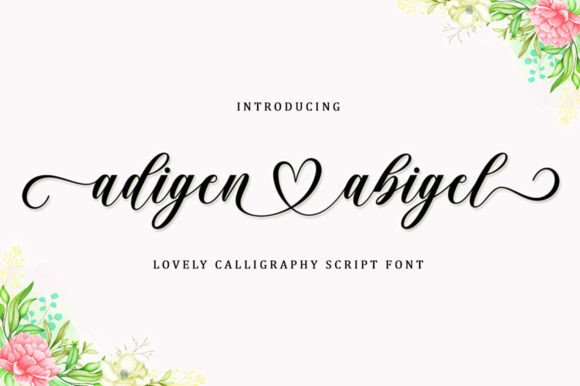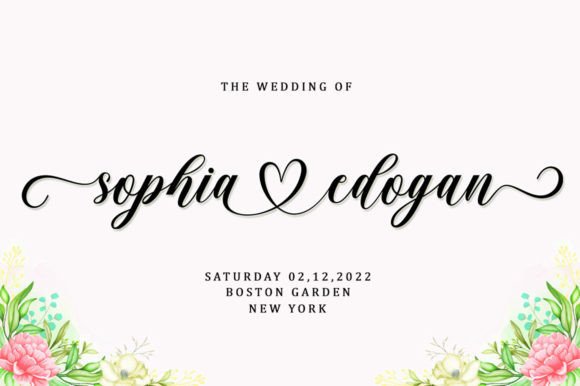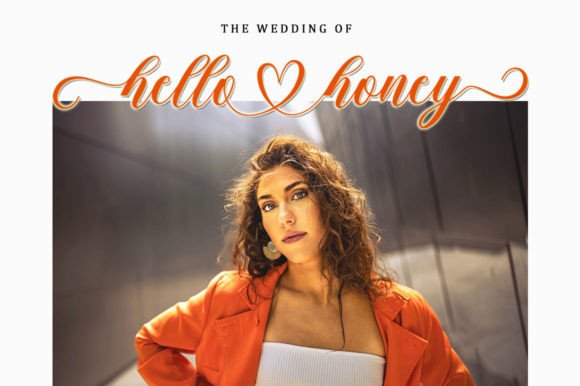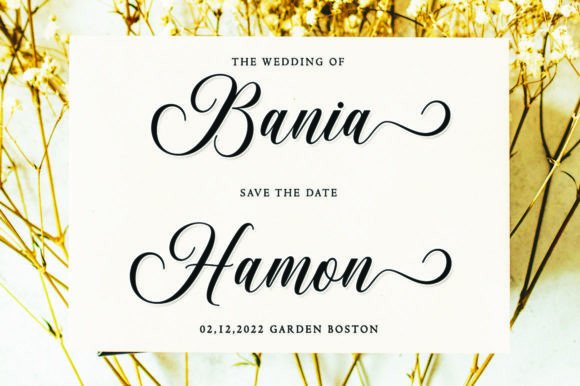
Adigen Abigel Font
About the Adigen Abigel Font
We are excited to introduce Adigen Abigel Font, a must-have typeface for any serious designer. Adigen Abigel is a Modern Script font that comes with a heart in the middle. It is a classic copper decorative script typeface with a modern touch, designed with great detail to present a cute and elegant style.
Adigen Abigel is interesting because the typeface is pleasing to the eye, clean, feminine, sensual, glamorous, simple, and very easy to read because of the many luxurious letter connections. This classy font is suitable for various formal forms such as invitations, labels, restaurant menus, logos, fashion, makeup, stationery, novels, magazines, books, greeting cards/weddings, packaging, labels, or all kinds of advertisements. This font is PUA encoded, which means you can access all of the glyphs and swashes with ease!
Adigen Abigel Font Usage Examples
Adigen Abigel Font Example